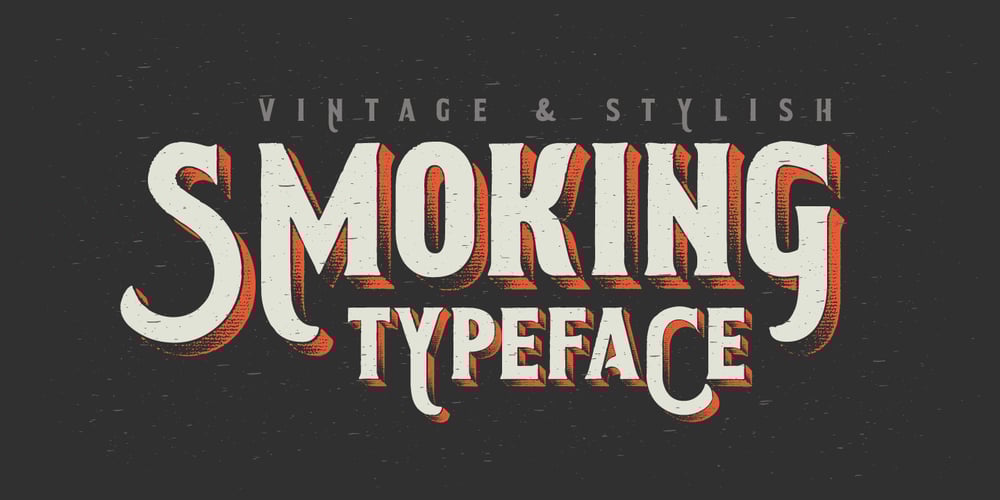
Smoking Typeface
Smoking Typeface Font Family was designed by Gleb Guralnyk and published by Gleb Guralnyk. Smoking Typeface contains 3 styles and family package options. It’s a vintage western font with old style characters shape. It has useful separated font files for base font and a textured volume effect, so you can easily recolor your text in few clicks.